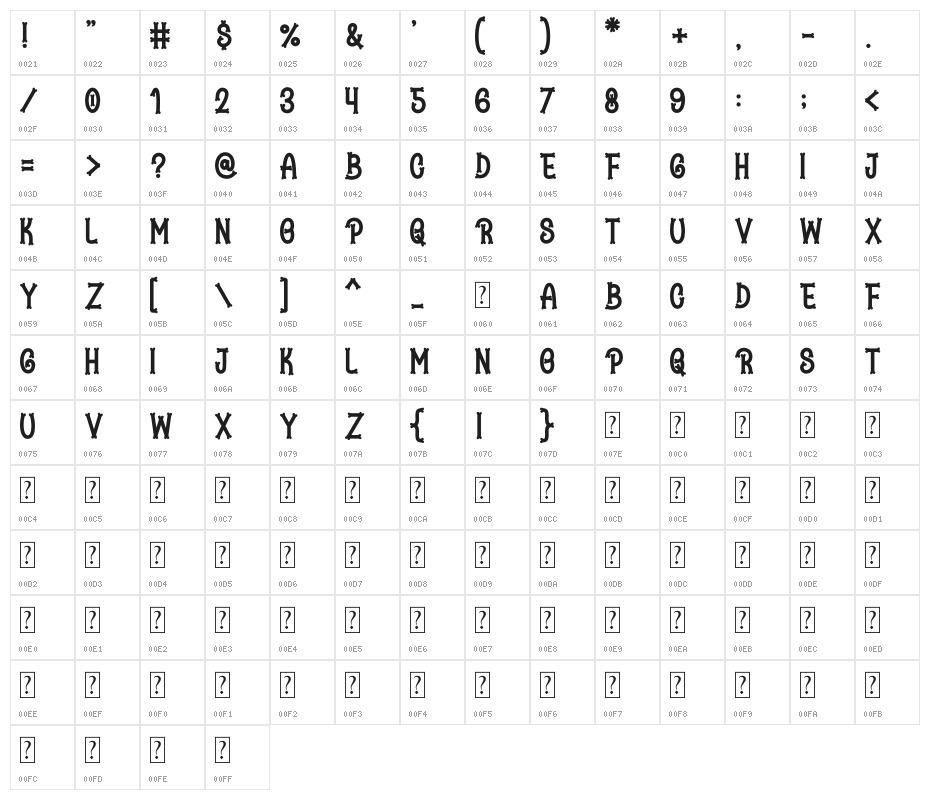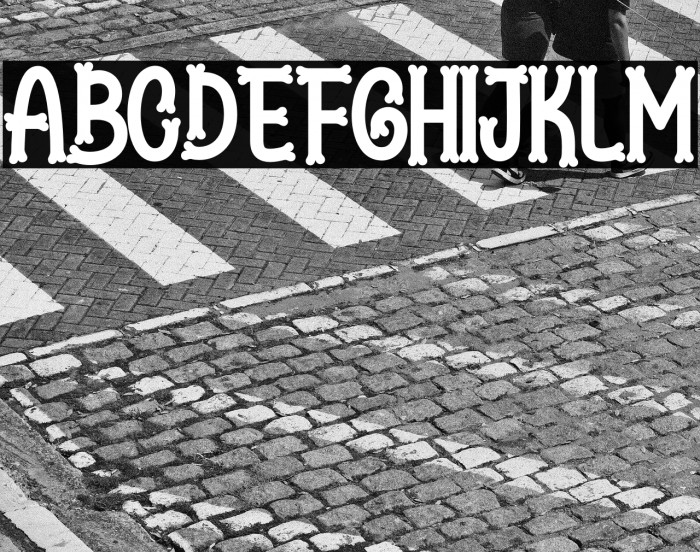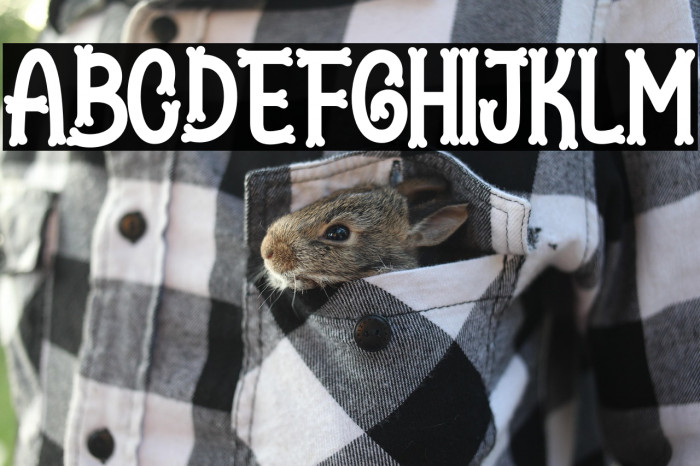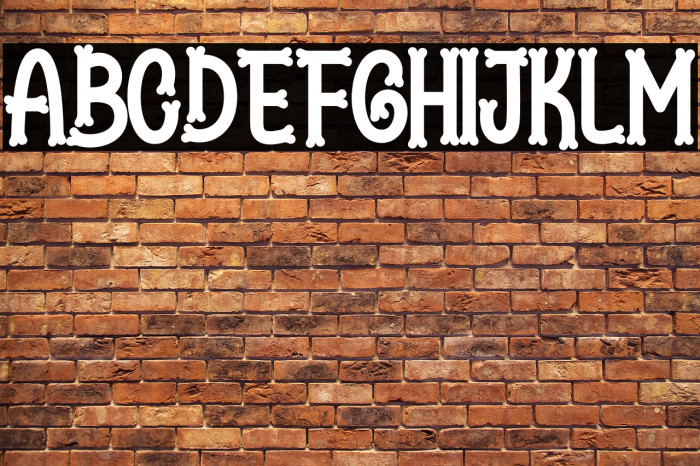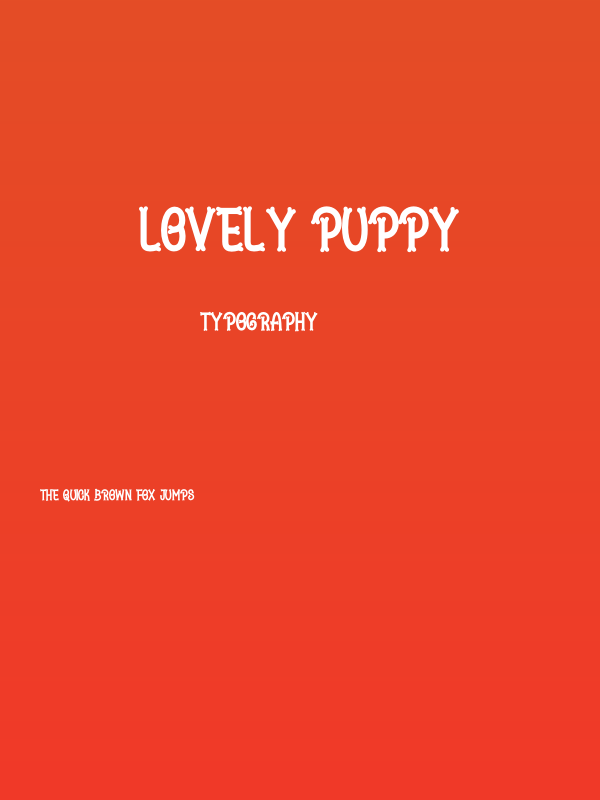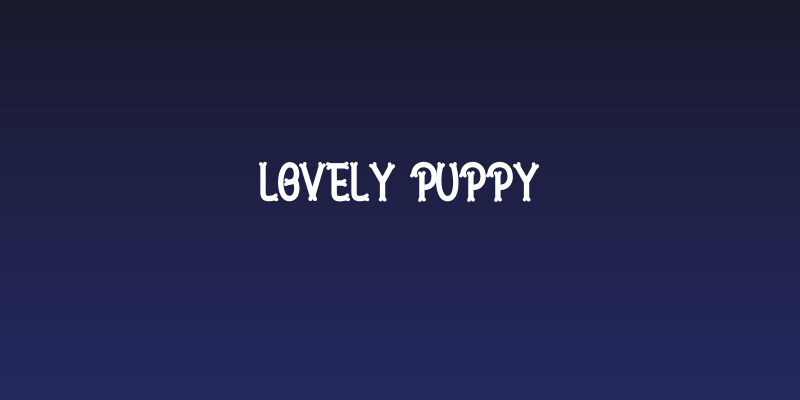
Lovely Puppy Font
Lovely Puppy Description
This playful and whimsical font features bold, rounded characters with a unique, decorative flair. Each letter is adorned with small, playful embellishments that give it a lively and cheerful appearance. The font maintains a consistent thickness throughout, providing a sense of uniformity while still allowing for individual character expression. Its design is reminiscent of a fun, cartoonish style, making it ideal for projects that require a touch of creativity and joy. The numbers and special characters follow the same playful theme, ensuring a cohesive look across all text elements.
| Overall Style | Playful, Cartoonish, Whimsical |